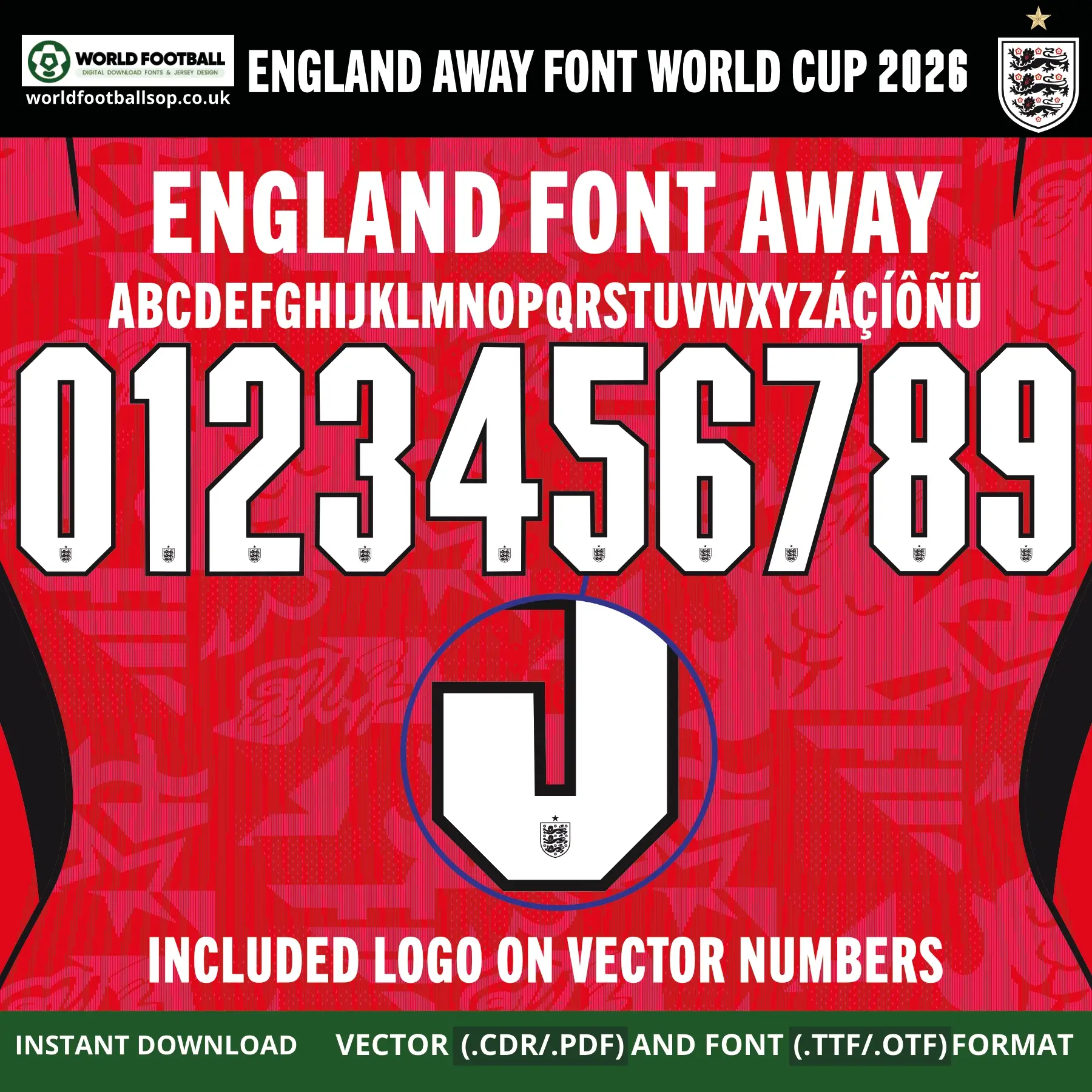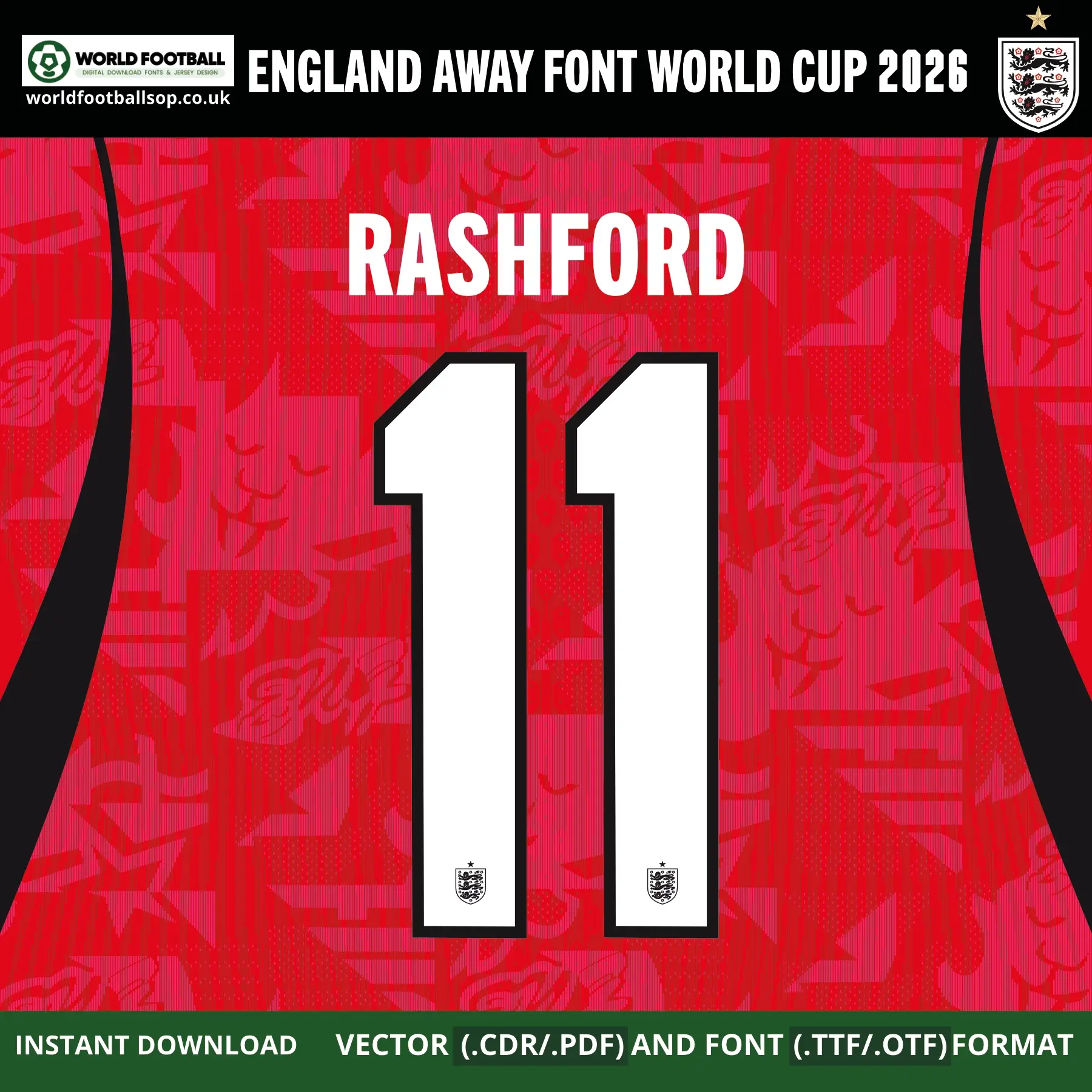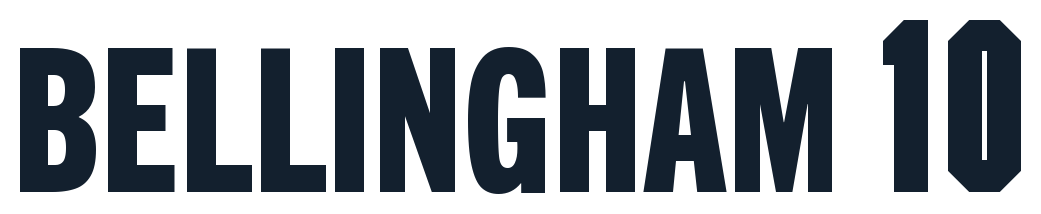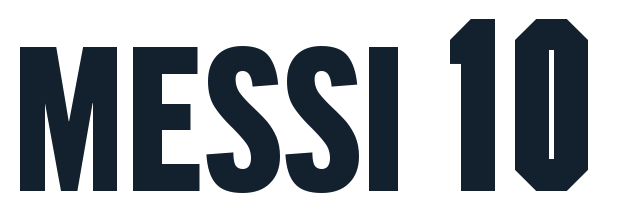
England Away Font World Cup 2026 – Three Lions Speed Red Retro Style
The England Away Font World Cup 2026 pack recreates Nike’s traditional retro-inspired typeface designed for the England 2026 away shirt. The letters and numbers feature classic blocky, angular 1990s‑style shape in bold white over the distinctive “Speed Red” base with subtle lions‑and‑stars jacquard pattern, exactly matching the historic red‑away kit released March 2026.
Perfect for kit printers, collectors and designers, this pack lets you produce accurate England away font namesets for every Three Lions supporter jersey. Vector numbers include the official England crest with 1966 star at the bottom, while the TTF/OTF fonts keep things clean for general design projects. Create “RASHFORD 11” for posters, thumbnails, or custom shirts that match the official away kit style seen on TV and in stadiums.
Full uppercase A-Z alphabet plus extended Latin characters (Á, É, Í, Ó, Ú, Ñ, Ö) for international player names.
Numbers 0-9 in England 2026 away kit style, ready for back, front or shorts printing.
Preview layouts: full number set with alphabet, zoomed crest on “5”, and “RASHFORD 11” example.
Design highlights
Classic retro block style: Angular white numbers matching the Nike England 2026 away kit 90s throwback aesthetic.
Speed Red away perfect match: White font designed for the “Speed Red” shirt with lions‑stars pattern and centralised crest.
High-visibility contrast: Bold white ensures readability on red fabric for TV broadcasts and stadium viewing.
Three Lions crest integration: Vector digits include authentic FA badge with 1966 star at number base, just like official match shirts.